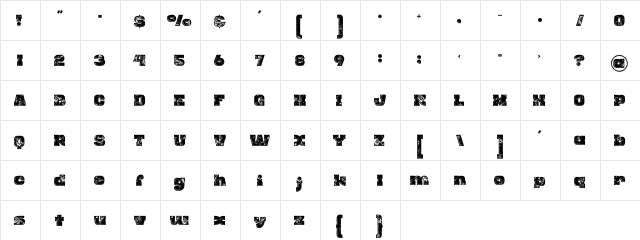
Rhino Inline Grunge Inline Grunge
Design Context for Rhino Inline Grunge Typeface
Rhino Inline Grunge trades polish for personality, using distressed and eroded forms to bring grit and attitude to creative work.
A strong fit for alternative music projects, graffiti-adjacent design, and anything that deliberately resists polish.
Pro Tip: Use Rhino Inline Grunge at larger sizes where the texture and irregularity of each letterform can be clearly seen — it loses its character at small sizes.